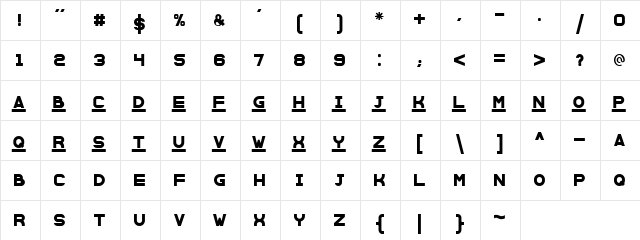
Saint Martin Regular
| Foundry | Mohammad Arafin (Duke) |
| Designer | Mohammad Arafin (Duke) |
Design Context for Saint Martin Typeface
Saint Martin is a composed and adaptable typeface that performs quietly and consistently across a wide range of design contexts.